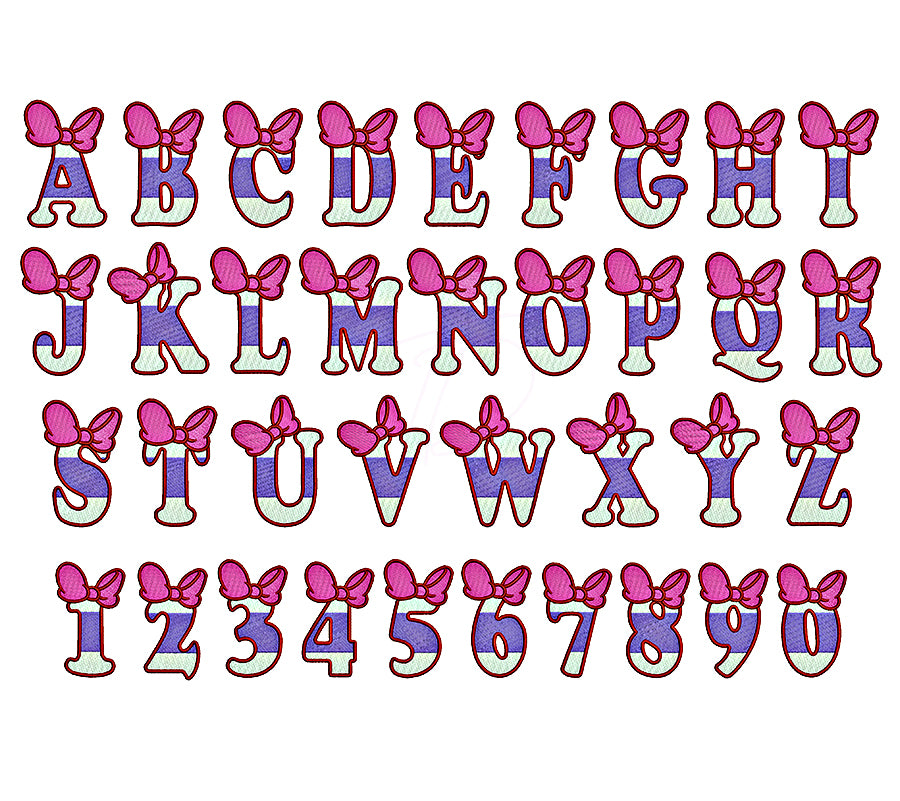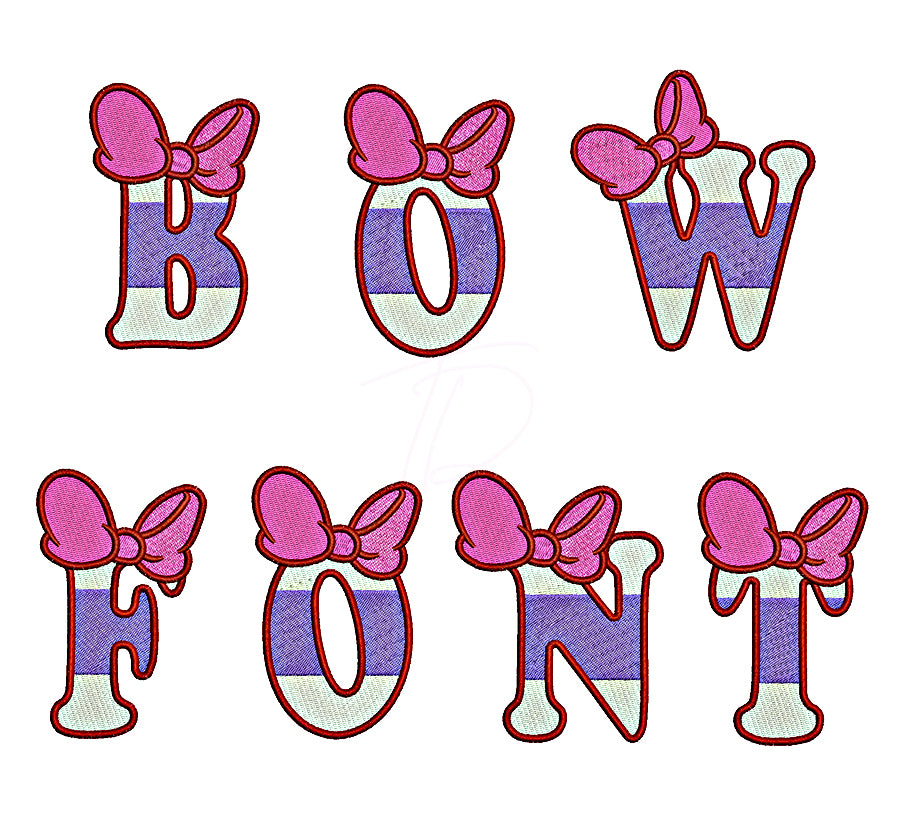
Bow Mouse Embroidery Font
Sweet, sassy, and oh-so-adorable — meet the Bow Mouse Embroidery Font! A darling machine embroidery font featuring charming, feminine letterforms adorned with cute bow and mouse ear accents that little ones (and big ones!) will absolutely love. 🐭🎀✨
Perfect for personalizing girls' apparel, birthday outfits, hair accessories, tote bags, nursery décor, and themed party gifts. This font brings a magical, playful touch to any embroidery project.
- Includes full alphabet (A–Z, a–z) and numbers
- Clean, detailed stitching optimized for small and medium sizes